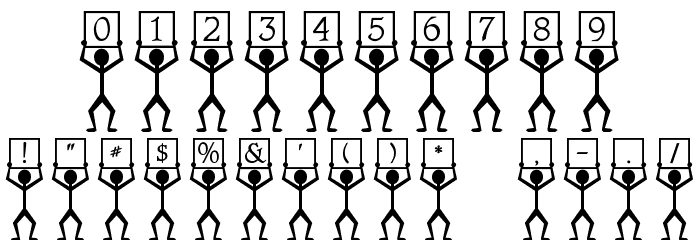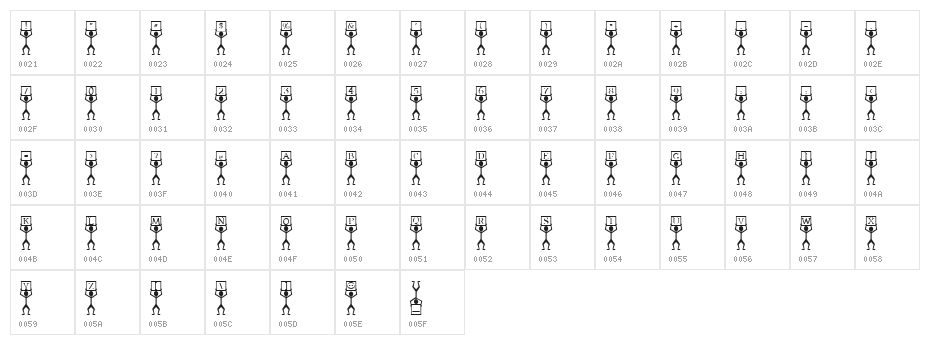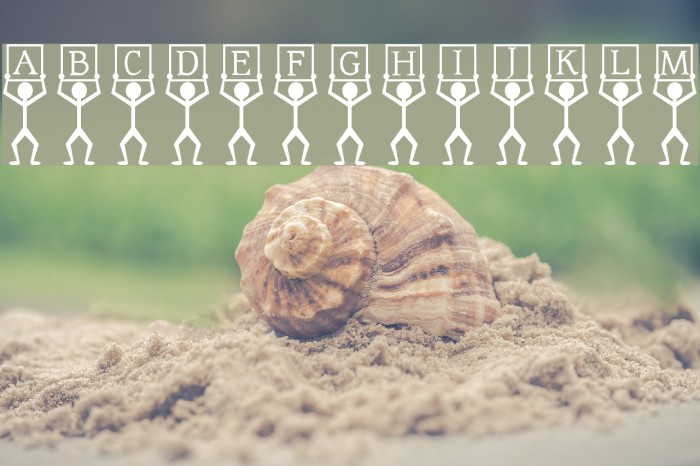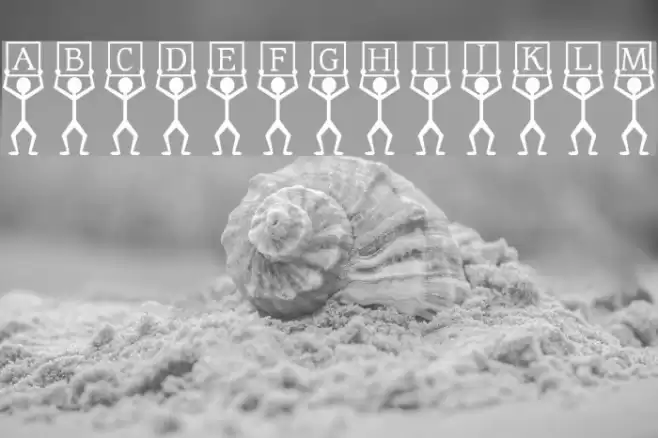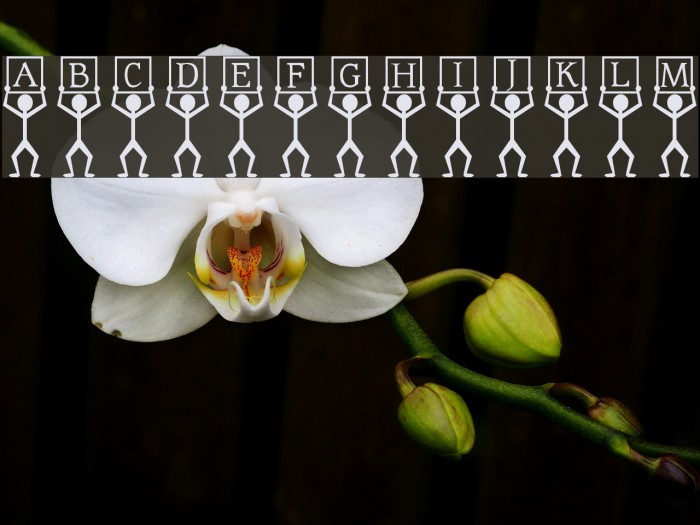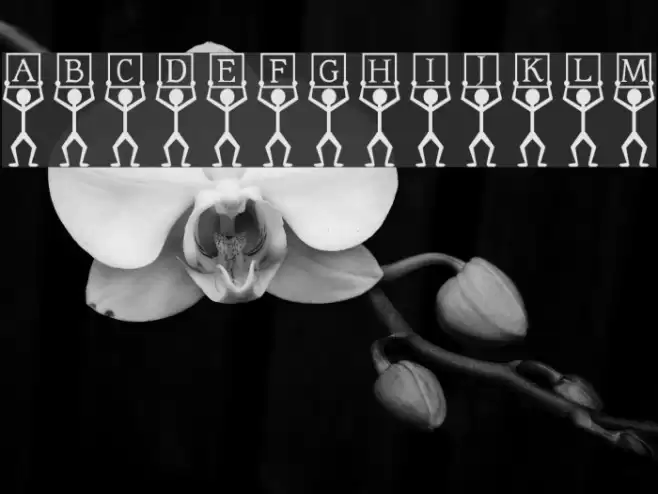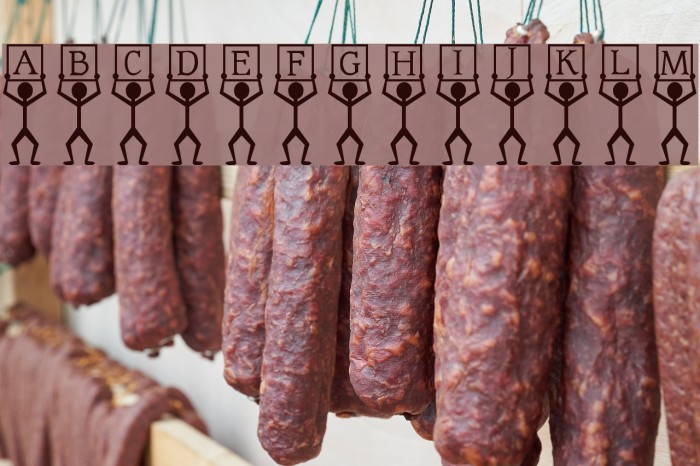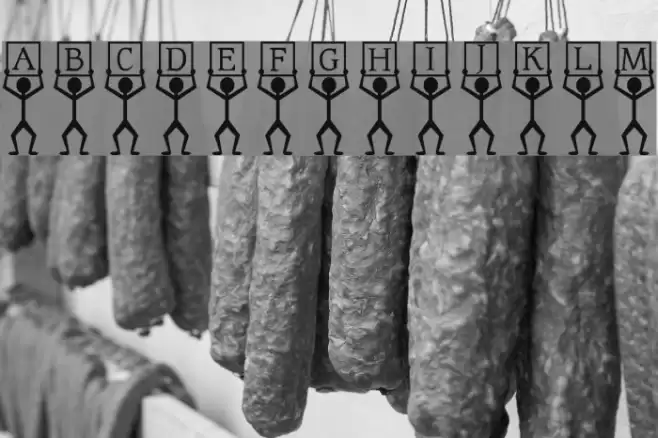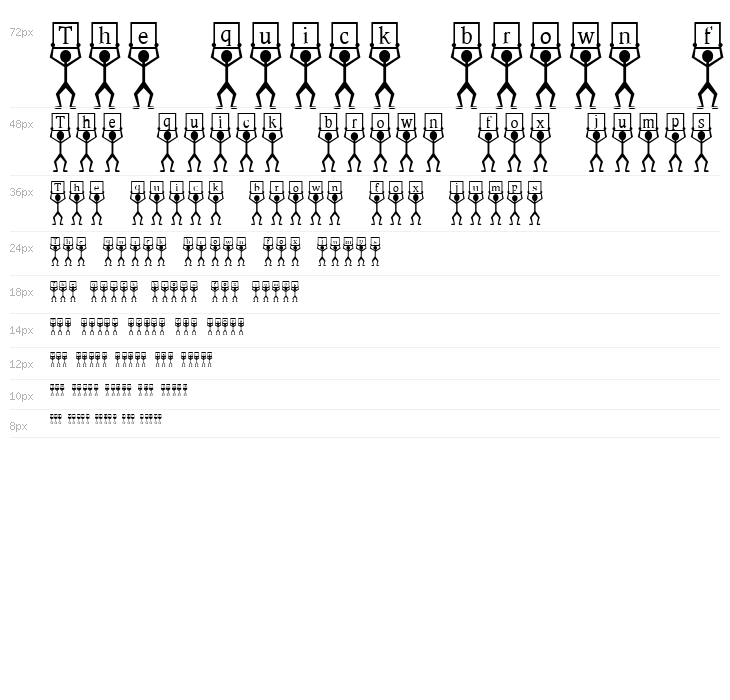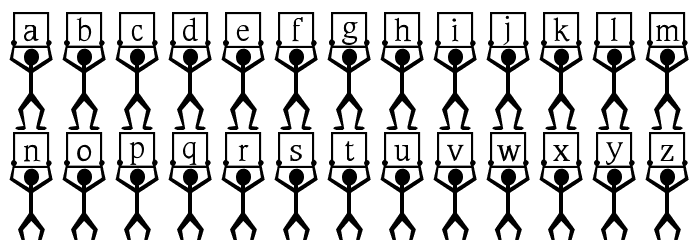
Cue Regular Font
Cue Regular Description
This playful and whimsical font features characters held up by stick figure illustrations, creating a unique and engaging visual experience. Each letter and symbol is encased in a box, which is supported by the arms of the stick figures, adding a dynamic and lively element to the design. The font maintains a consistent structure with clear, bold lines that ensure readability while offering a creative twist. The combination of traditional letterforms with the unconventional presentation makes it suitable for projects that aim to capture attention and convey a sense of fun and creativity.
| Use Case | Logos, Posters, Creative Branding |
| Proposed Projects | Ideal for children's books, playful branding, creative posters, and any project seeking a fun and engaging aesthetic. |